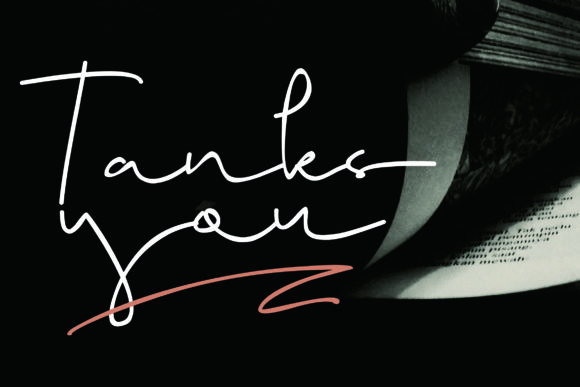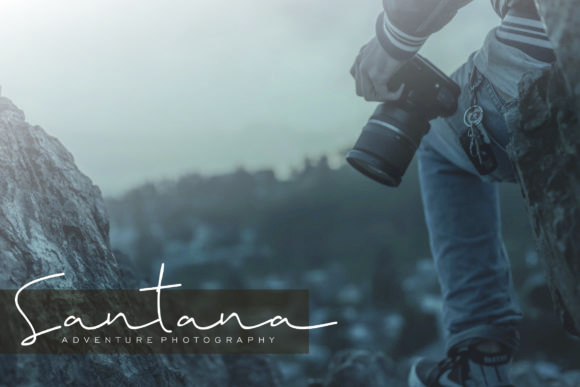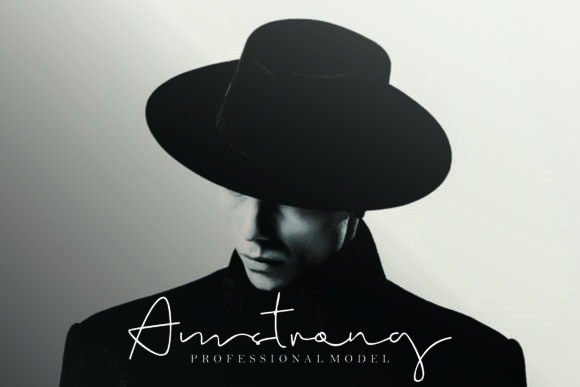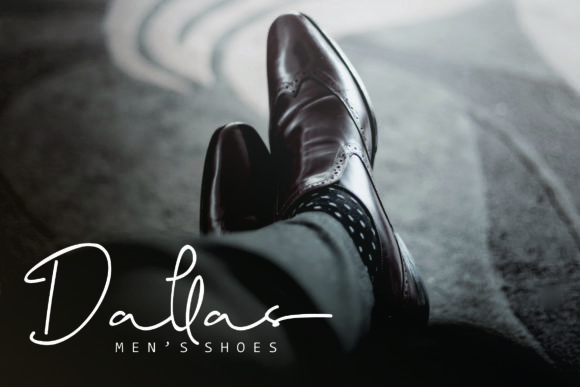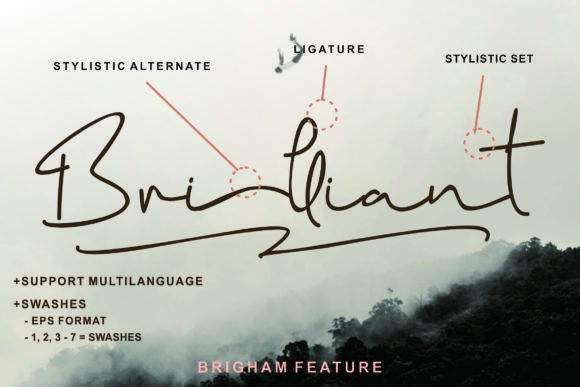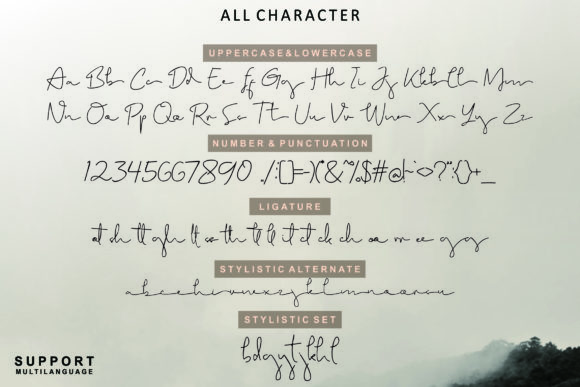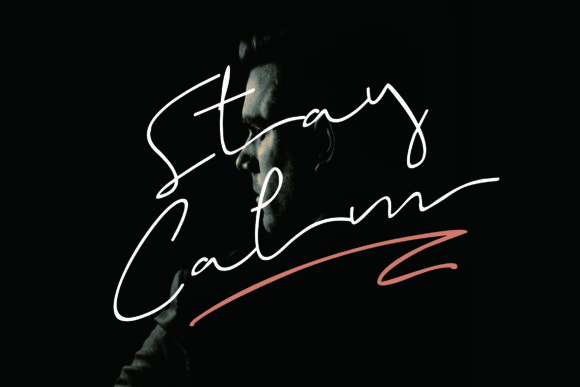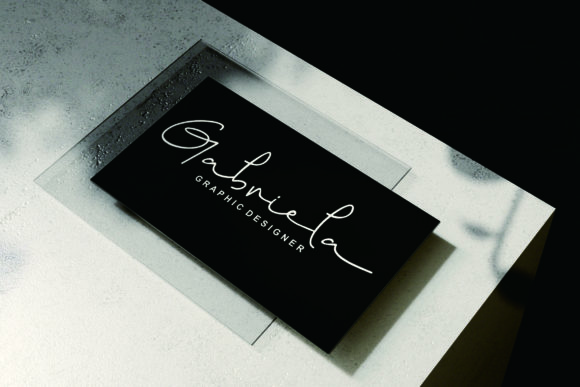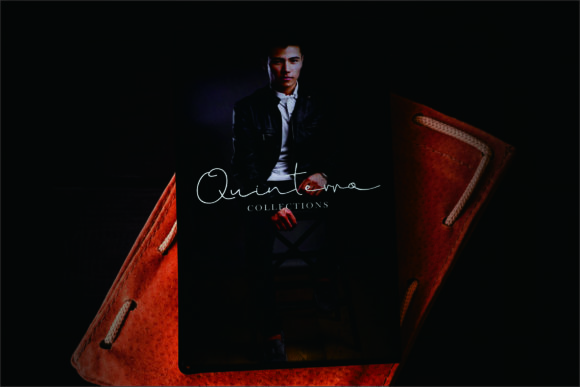
Brigham Script Font
About Brigham Script Font
Brigham is a beautiful and stunning handwritten font with a contemporary feel. It’s modern and smart feel will turn any design project into a stand out!